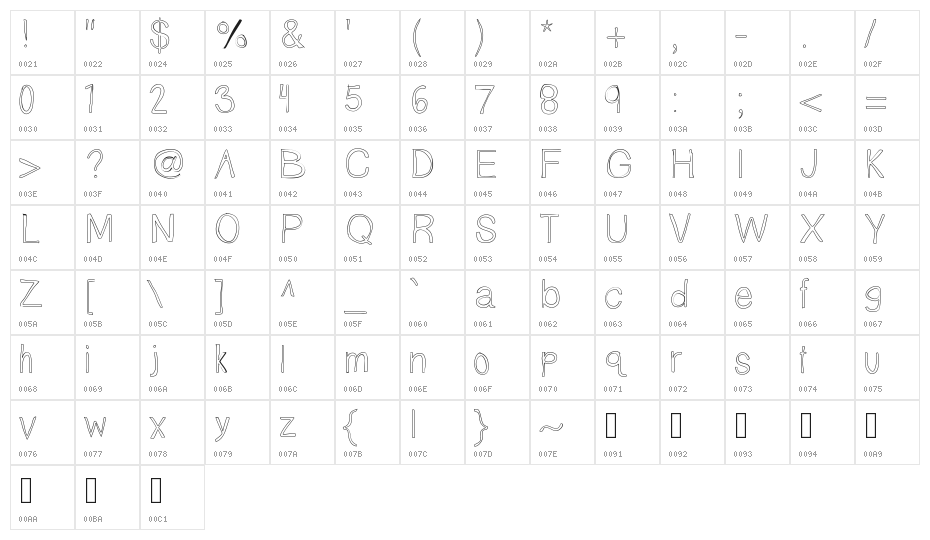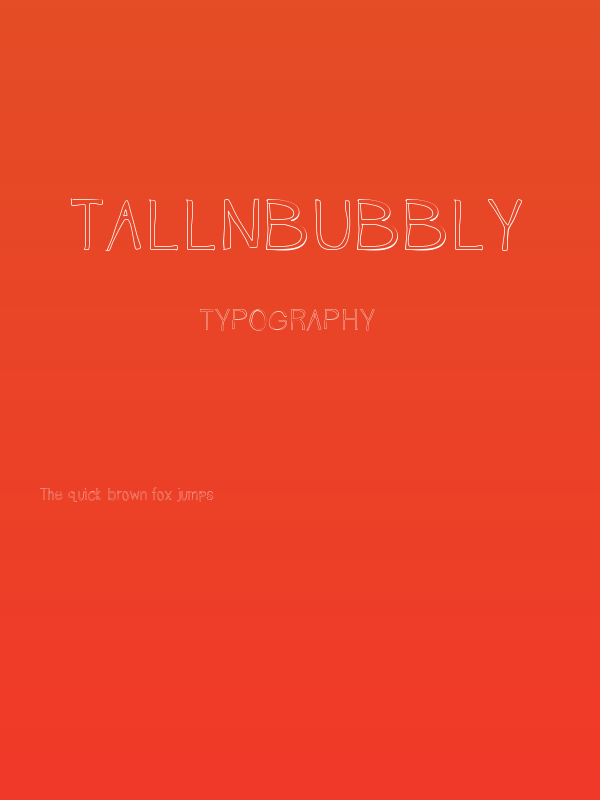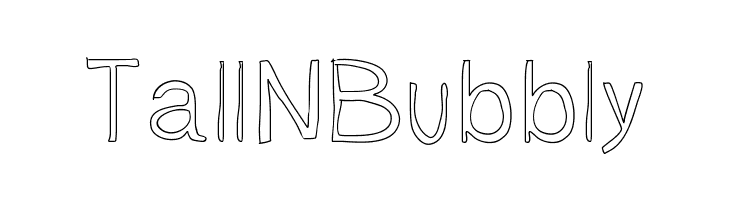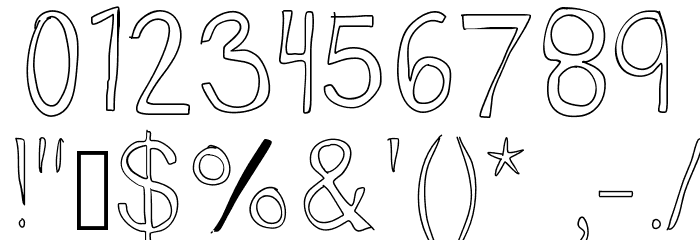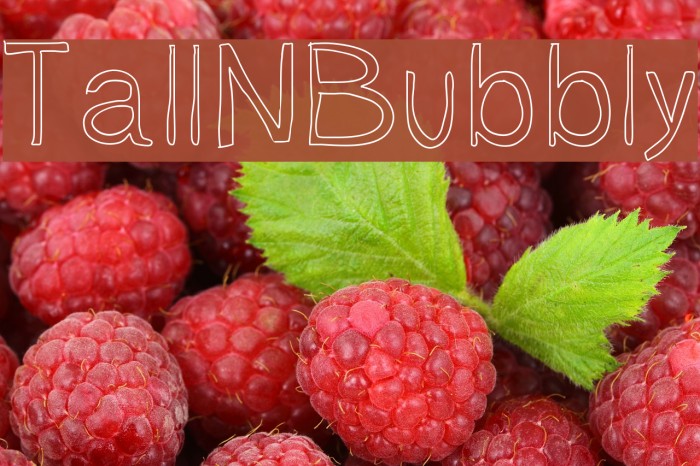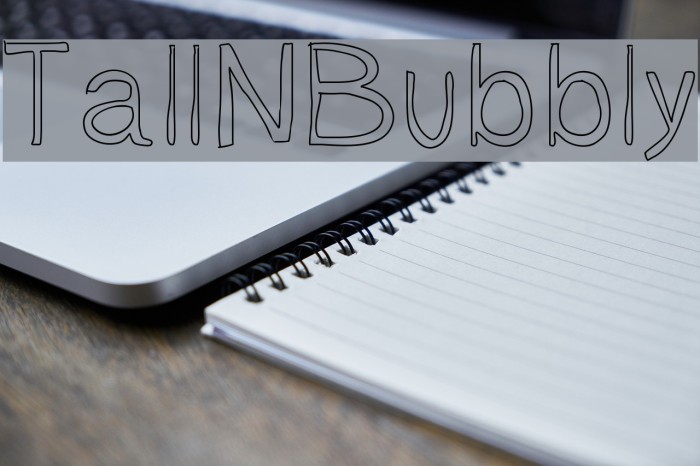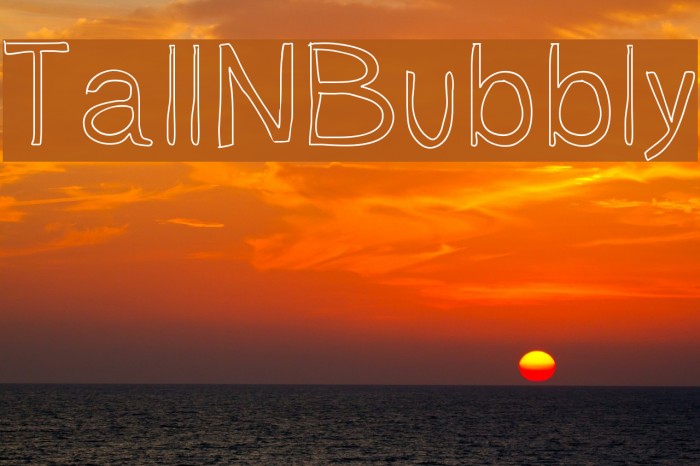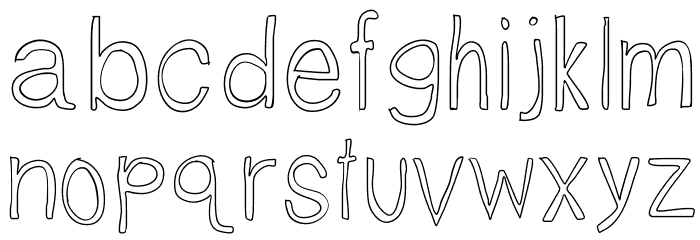
TallNBubbly Font
TallNBubbly Description
This playful and whimsical font features tall, narrow letters with a bubbly, rounded appearance. The strokes are consistent in width, giving it a uniform and clean look. The uppercase and lowercase letters maintain a cohesive style, with slightly exaggerated curves and loops that add a touch of fun and creativity. The numbers and special characters follow the same design principles, ensuring a harmonious overall appearance. This font's unique style makes it stand out, while still being legible and versatile for various design needs.
| Use Case | Logos, Posters, Headlines |